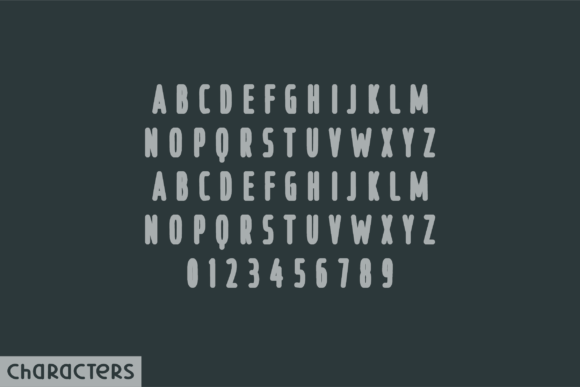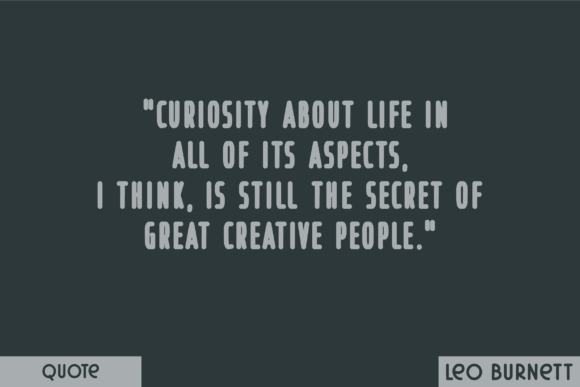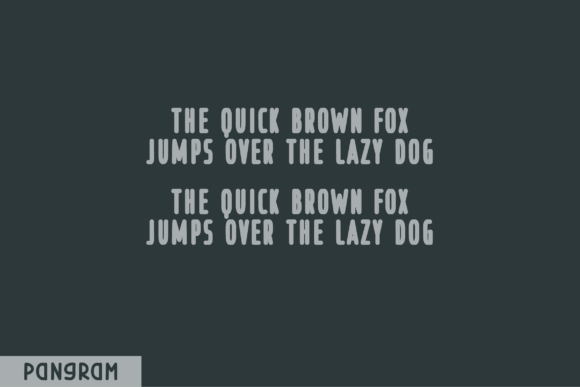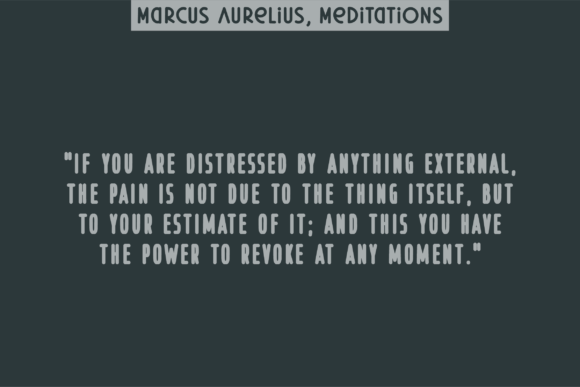
Introduction to Leche Custard Font
As designers, we’ve all been there – staring at a blank canvas, trying to find the perfect font to bring our creative project to life. It’s a moment of excitement and anxiety, knowing that the right choice can make all the difference in conveying our message. And then, it happens – you stumble upon a font that’s not only beautiful but also unique, making your design stand out from the crowd.
| 👤 Author | Hanna Bie |
That’s exactly what Leche Custard Font offers – a natural sans serif font that’s as versatile as it is striking. What sets it apart is its creation process, which involves no node manipulation, resulting in a font that’s both high-quality and authentic. With its transparent background and free download option, it’s no wonder Leche Custard Font has become a sought-after design resource for creatives.
Key Features of Leche Custard Font
- High-quality, elegant design perfect for various creative projects, including invitations, greeting cards, and digital art.
- Features a transparent background, allowing for seamless integration with any background image or color.
- Includes a range of glyphs and characters, making it suitable for multilingual projects.
- Designed with a unique, handwritten style that adds a touch of personality to any design.
- Available in a single weight, but its elegant design makes it suitable for a variety of applications.
- Designed at a high resolution (300 DPI), ensuring that it looks great in print and digital formats.
Honest Review: Leche Custard Font
I recently came across the Leche Custard Font, and I must say, it’s a delightful addition to any creative project. The font’s playful, handwritten feel immediately caught my attention, and I couldn’t wait to see how it would look in my designs.
One of the standout features of this font is its transparency option, which allows for a seamless integration with transparent backgrounds. This is a game-changer for designers who need to create visually striking designs that pop against any background.
- High-quality, crisp typography
- Playful, handwritten feel perfect for creative projects
- Transparent background option for added flexibility
- Limited language support, which may be a concern for designers working on international projects
- No bold or italic variants, which could be a limitation for some designers
Overall, I’m impressed with the Leche Custard Font. Its unique feel and high-quality design make it a valuable addition to any designer’s toolkit. While it may have some limitations, I believe the benefits far outweigh the drawbacks.
Leche Custard Font
The Leche Custard Font is a high-quality design resource perfect for creative projects. It offers a unique and stylish look that can elevate your designs to the next level. With a transparent background, you can easily combine it with other elements to create a cohesive visual identity.
Here are a few tips to help you get the most out of the Leche Custard Font: experiment with different font sizes and styles, combine it with other design elements, and use it for a variety of creative projects.
The Leche Custard Font is perfect for a variety of use cases, including: branding, marketing materials, social media graphics, presentations, and reports. It’s a versatile font that can be used in many different contexts.
Is the Leche Custard Font suitable for print projects?
The Leche Custard Font is designed for digital use, but it can also be suitable for print projects with the right preparation. To ensure the best results, make sure to embed the font in your document or use a font substitution feature in your design software. This will help prevent font substitution and ensure that the font appears as intended in the printed output.